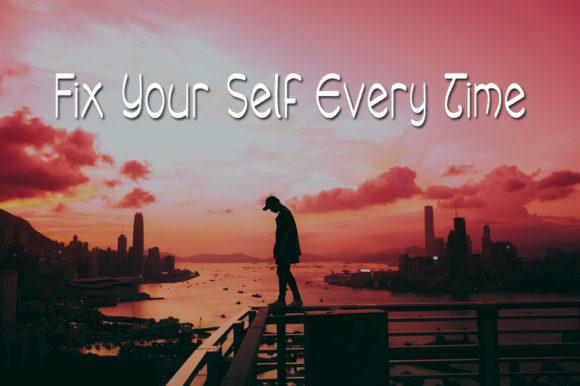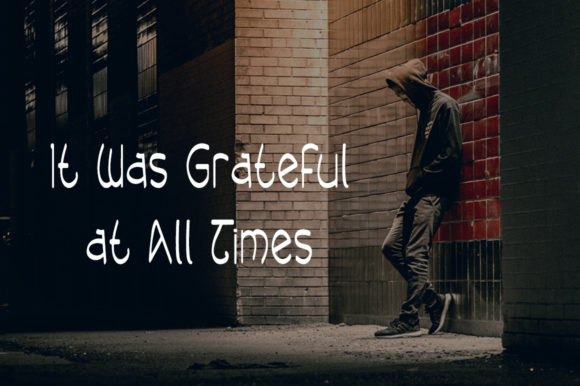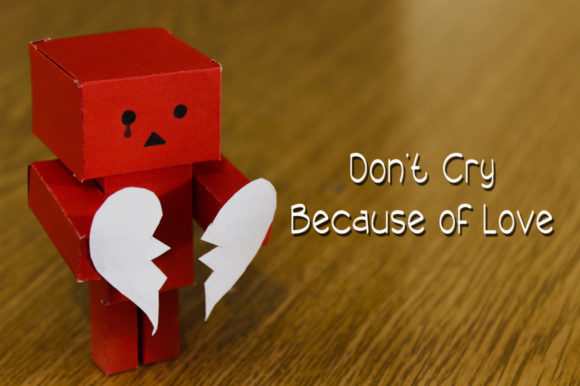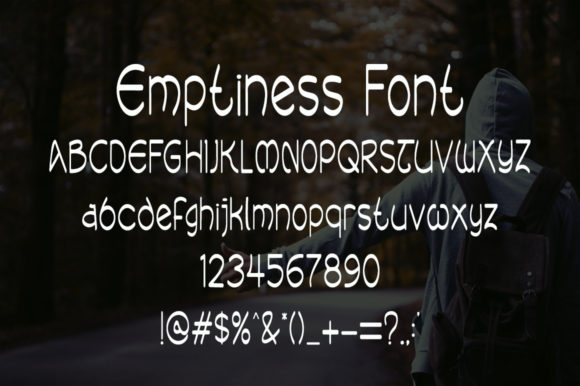
Introducing Emptiness Font: The Perfect Handwritten Companion for Your DIY Projects
Are you a designer, crafter, or DIY enthusiast looking for a font that can add a personal touch to your projects? Look no further than Emptiness Font, a relaxed and cool handwritten font that’s sure to bring a sense of warmth and authenticity to your creations. In this article, we’ll dive into the world of Emptiness Font, exploring its unique characteristics, uses, and benefits.
What is Emptiness Font?
Emptiness Font is a beautifully crafted handwritten font that’s designed to evoke a sense of casual elegance. Its relaxed and cool vibe makes it perfect for a wide range of DIY projects, from crafting and scrapbooking to blogging and social media graphics. With its endearing and authentic feel, Emptiness Font is sure to capture the hearts of designers, crafters, and DIY enthusiasts alike.
Key Features of Emptiness Font
So, what makes Emptiness Font so special? Here are some of its key features:
- Relaxed and Cool Vibe: Emptiness Font has a laid-back, effortless feel that’s perfect for creating casual and approachable designs.
- Handwritten Authenticity: This font is carefully crafted to mimic the look and feel of handwritten text, giving your designs a personal and human touch.
- Endearing and Charming: Emptiness Font is designed to be endearing and charming, making it perfect for projects that require a touch of personality.
- Versatile and Adaptable: This font is highly versatile and can be used for a wide range of DIY projects, from paper crafting to digital design.
Uses for Emptiness Font
So, how can you use Emptiness Font in your DIY projects? Here are some ideas to get you started:
- Scrapbooking and Paper Crafting: Emptiness Font is perfect for scrapbooking, card making, and other paper crafting projects.
- Blogging and Social Media Graphics: Use Emptiness Font to add a personal touch to your blog posts, social media graphics, and other digital designs.
- DIY Crafts and Tutorials: Emptiness Font is great for creating instructional guides, tutorials, and other DIY projects.
- Stationery and Journaling: This font is perfect for creating custom stationery, journals, and planners.
Benefits of Using Emptiness Font
So, why should you choose Emptiness Font for your DIY projects? Here are some benefits to consider:
- Easy to Read: Emptiness Font is highly legible, making it easy to read and understand.
- Unique and Creative: This font is carefully crafted to stand out from the crowd, giving your designs a unique and creative edge.
- Time-Saving: With Emptiness Font, you can create professional-looking designs in no time, saving you time and effort.
- Customizable: This font is highly customizable, allowing you to adjust the size, color, and style to suit your needs.